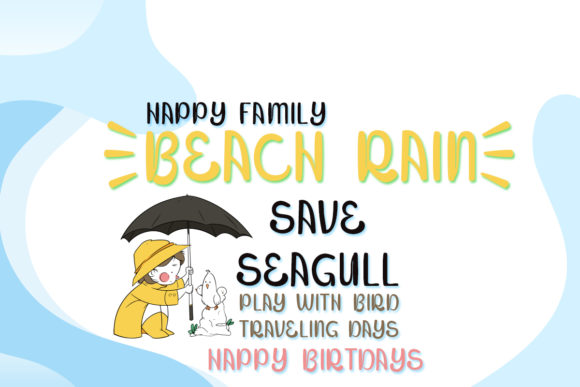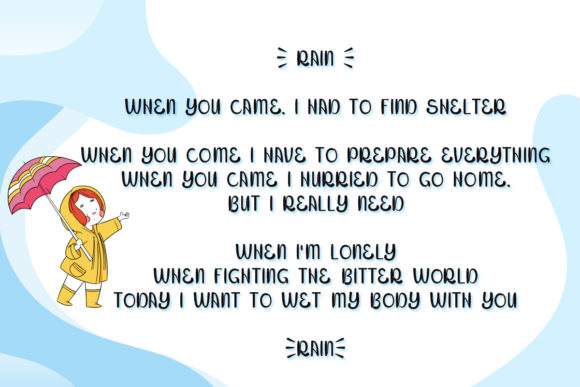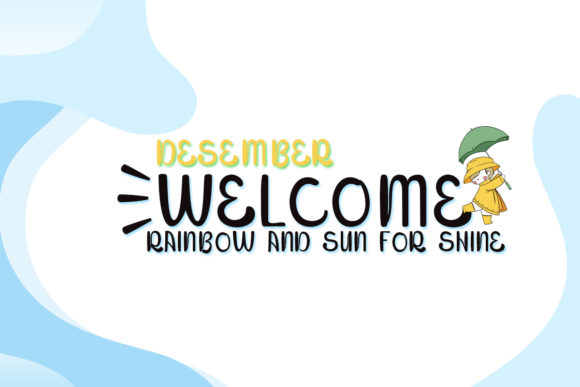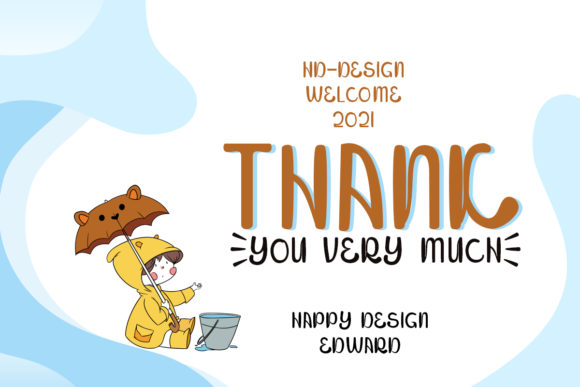
Introduction to Rainy Days Font
Have you ever sat at your desk, staring blankly at a blank canvas, waiting for inspiration to strike? That’s exactly where I was when I stumbled upon the Rainy Days Font. Its quirky, asymmetrical design had me hooked from the very first glance. As a designer, I’m always on the lookout for unique fonts to level up my creative projects, and Rainy Days Font was the perfect addition to my collection.
What I love most about the Rainy Days Font is its versatility. Whether you’re working on a digital design, a social media graphic, or even a logo, this font is sure to add a touch of personality to your work. Plus, with its transparent background, it’s easy to use as a design resource for a variety of projects.
Key Features of Rainy Days Font
- Unique and creative design perfect for various projects, including digital art, graphic design, and web design.
- High-quality font with a transparent background, ideal for creating visually appealing designs with a rain-inspired theme.
- Size: 10 styles, including regular, bold, italic, and bold italic, offering flexibility in font usage.
- Designed to evoke a sense of calmness and serenity, making it perfect for projects requiring a soothing and peaceful atmosphere.
Honest Review: Rainy Days Font
As a designer, I’m always on the lookout for high-quality design resources to elevate my creative projects. Recently, I had the chance to test out the Rainy Days Font, and I’m excited to share my honest review with you.
First, let’s talk about what works well with this font. ✨ The Rainy Days Font has a unique, hand-drawn feel that’s perfect for adding a touch of whimsy to your designs. The font is also available for free download, making it a great resource for designers on a budget. Plus, the transparent background option allows for seamless integration with other design elements.
Here are some of the key features that make the Rainy Days Font stand out:
- Unique, hand-drawn design
While the Rainy Days Font is a great addition to any designer’s toolkit, there are a few limitations to keep in mind. ⚠️ For one, the font may not be suitable for large-scale text or titles, as it can appear somewhat cluttered at larger sizes. Additionally, the font’s unique design may not be to every designer’s taste.
Overall, I’m impressed with the Rainy Days Font and would recommend it to designers looking for a high-quality, unique design resource. With a little creativity, this font can add a lot of character to your designs.
The Rainy Days Font often comes with a transparent background, making it a versatile design resource for creating visually appealing graphics. With its high-quality design, you can use it for a variety of projects, from social media graphics to presentations.
Some common use cases for the Rainy Days Font include:
- Presentations and slides
- Blog posts and articles
- Business cards and flyers
Tips for Getting the Most Out of Rainy Days Font
To get the most out of the Rainy Days Font, experiment with different font sizes, colors, and combinations. You can also pair it with other high-quality fonts to create a unique and visually appealing design.